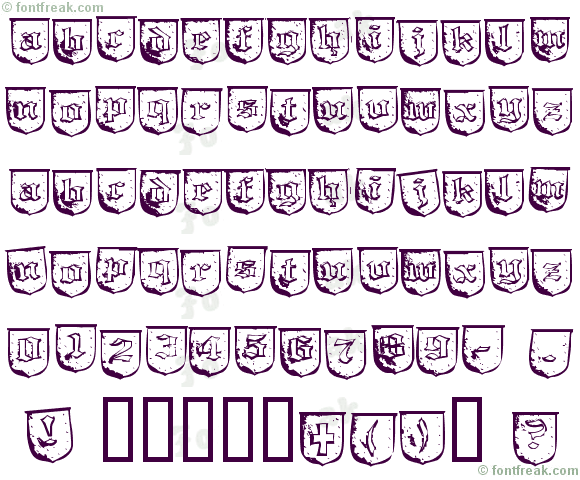
Troll Bait
Troll Bait — Character Map
About Troll
The Troll font, designed by Brian Powers in 1999, is a unique display typeface that captures attention with its whimsical and playful aesthetic. This decorative font features elongated, intricate letterforms that evoke a sense of fantasy and mischief, making it ideal for creative projects that require a touch of personality. The stroke weight varies throughout the characters, providing a dynamic contrast that enhances its visual interest. Its spacing is well-balanced, ensuring readability while maintaining a distinct character.
The Troll font is particularly suited for a variety of use cases. It shines in creating eye-catching movie posters, where its playful style can convey themes of adventure and whimsy. Additionally, it can elevate children’s book covers, making them visually appealing to young readers. Graphic designers can utilize this font for event flyers or invitations, especially for occasions like birthday parties or Halloween events, where a fun and quirky aesthetic is desired. Restaurant menus with a whimsical theme can also benefit from the Troll font, adding an element of charm that complements the dining experience.
Target audiences for this font include graphic designers looking for creative options, small business owners who want to differentiate their branding, and content creators seeking unique typographic elements for their projects.
What makes the Troll font stand out is its ability to blend creativity with clarity, ensuring that while it captures attention, it remains functional. As a freeware option, it provides an accessible avenue for designers and creators to incorporate this distinctive style into their work. For those interested, the Troll font free download offers an exciting opportunity to experiment with a font that brings a sense of fun and imagination to any design endeavor.
Author Brian Powers